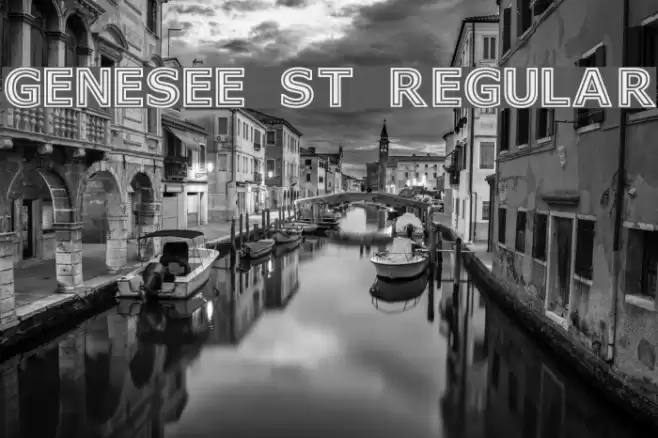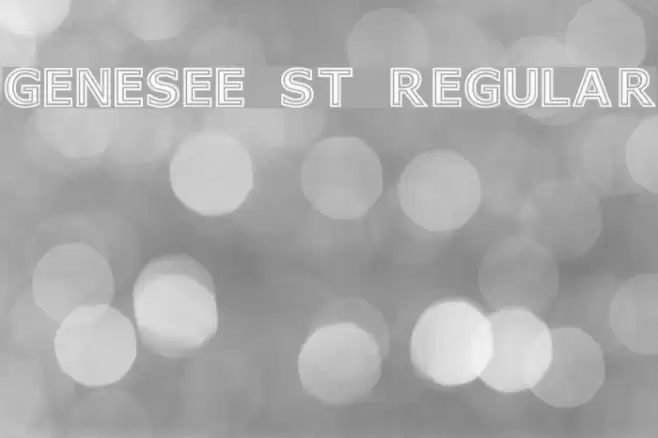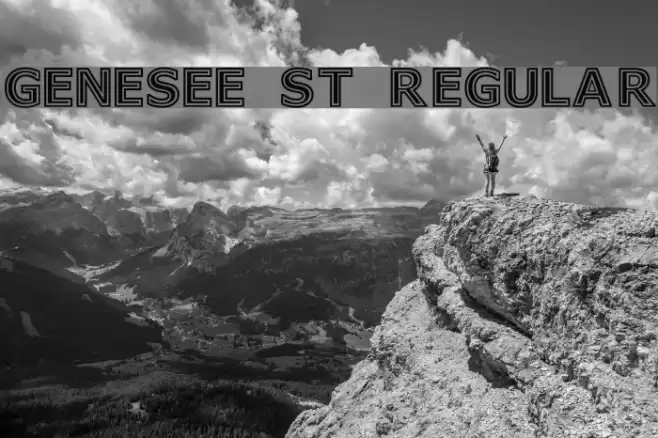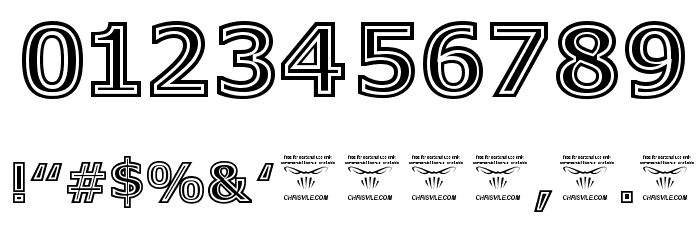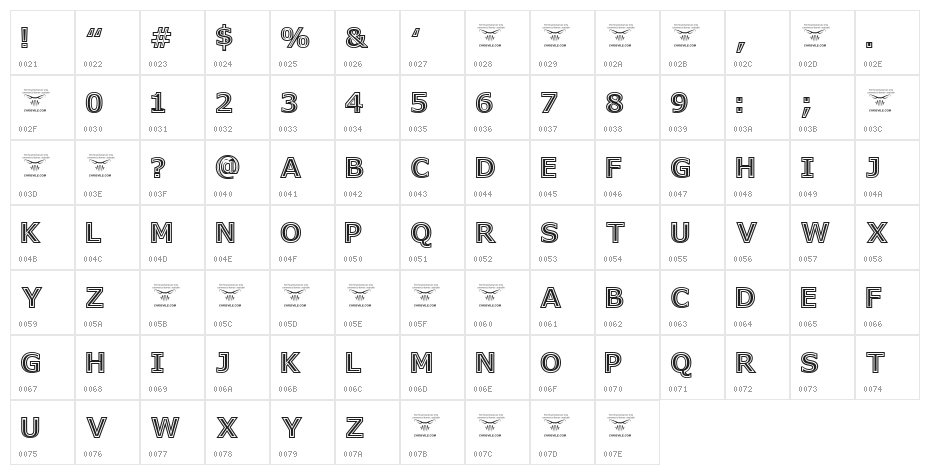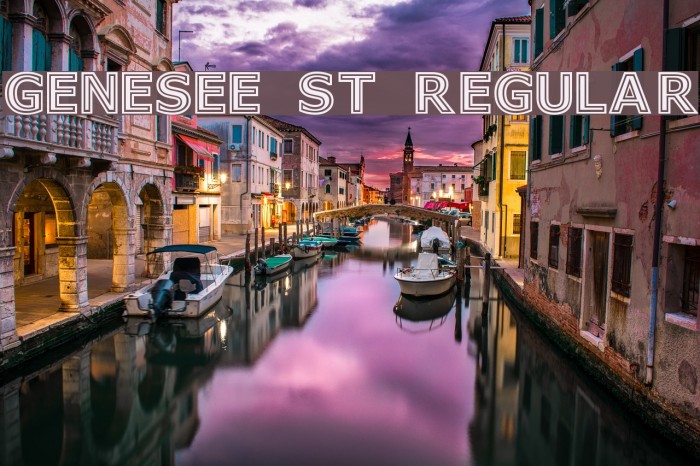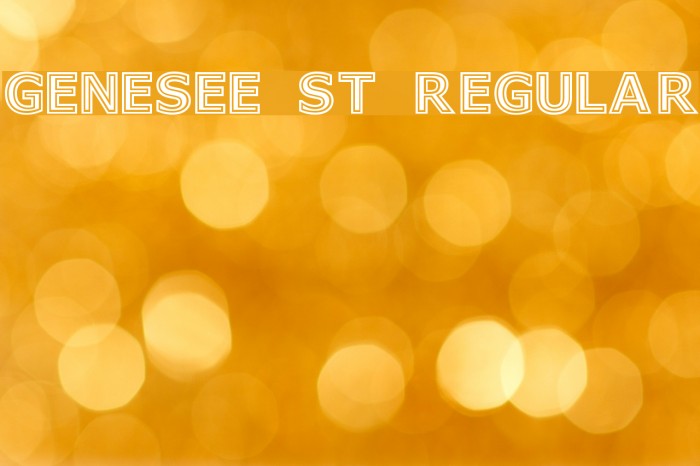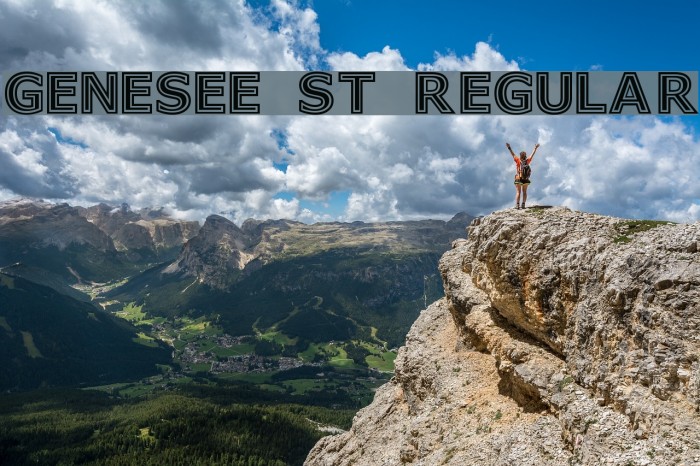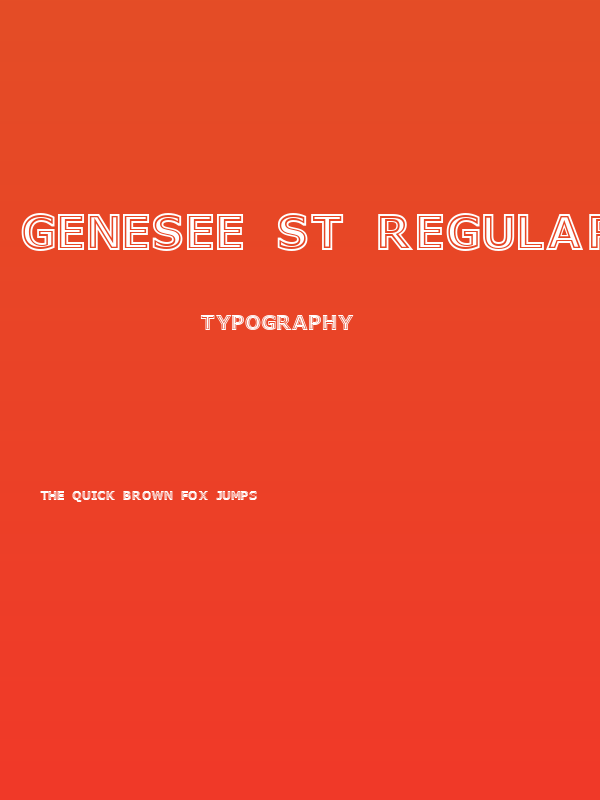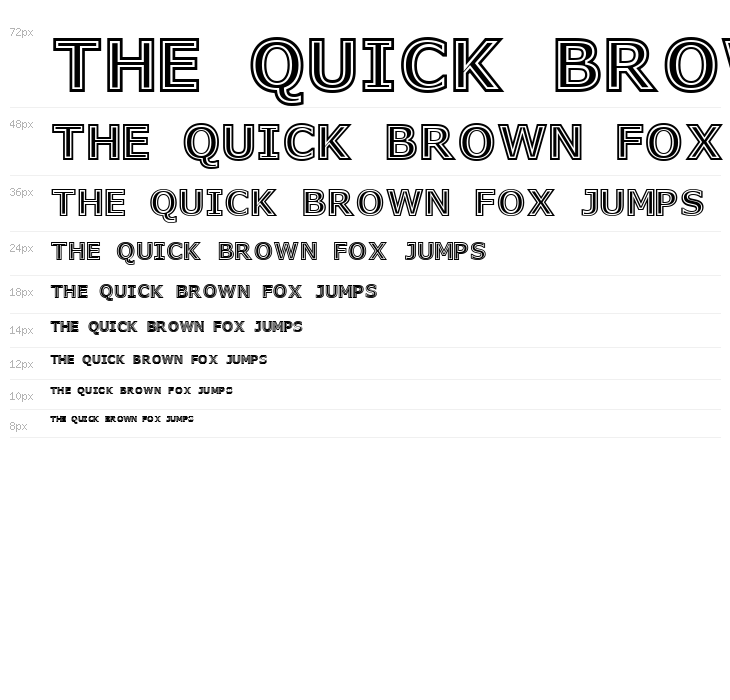
Genesee St Regular Font
Genesee St Regular Description
This font features a bold, outlined style with a modern and geometric appearance. Each character is designed with a double-line effect, creating a sense of depth and dimension. The uppercase and lowercase letters maintain a consistent width, providing a uniform look across the alphabet. The numerals are equally bold and clear, making them stand out effectively. Special characters are included, matching the overall aesthetic with the same outlined style. This font is ideal for projects that require a strong visual impact, such as posters, headlines, or branding materials.
A bold, outlined font with a modern, geometric style from Uncategorized fonts.
- Proposed Projects: Ideal for posters, headlines, branding, and any design requiring a strong visual impact.